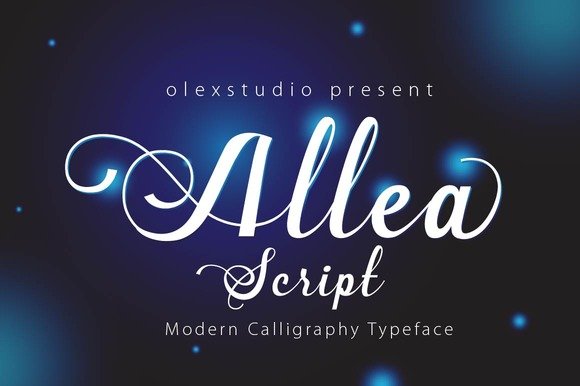
Adding a Touch of Elegance to Your Designs
Have you ever been brainstorming a new project, and suddenly, you envision the perfect combination of words and typography that just screams ‘elegance’? That’s exactly what happened to me when I stumbled upon the Allea Script Font. Its beautiful, flowing lines instantly sparked a vision of a classic, timeless design.
As it turns out, the Allea Script Font is a modern calligraphy typeface that’s perfect for adding a touch of sophistication to your designs. From headings and logos to invitations and posters, this versatile font is sure to elevate your creative projects and leave a lasting impression.
As a designer, you know how crucial it is to have the right tools at your disposal. The Allea Script Font is a valuable addition to any design arsenal, offering endless possibilities for creating stunning, elegant designs that will captivate your audience.
Allea Script Font Key Features
- Unique Characteristics: Allea Script Font features a beautiful, elegant, and cursive script design with subtle flourishes and connections between letters, making it perfect for creative and artistic projects.
Allea Script Font Review
I recently had the chance to work with Allea Script Font, and I must say it’s a beautiful addition to any design project. ✨ The elegant curves and swashes make it perfect for creating a luxurious and sophisticated look. The font’s high x-height and well-spaced letterforms ensure that it’s highly legible, even at smaller sizes.
- ✨ Beautiful, elegant curves and swashes
- ✨ Highly legible, even at smaller sizes
- ✨ Suitable for a wide range of design projects, from invitations to branding
However, I do have a few reservations about Allea Script Font. ⚠️ One of the main limitations is that it’s a single-weight font, which can make it difficult to use in situations where multiple weights are needed. Additionally, the font’s ornate nature can make it challenging to read in certain contexts, such as in body text.
- ⚠️ Single-weight font, may require additional fonts for multiple weights
- ⚠️ Ornate nature can make it challenging to read in body text
Overall, I’m impressed with Allea Script Font, but I do think it’s essential to consider its limitations when deciding whether to use it in a project. With careful selection and application, it can be a beautiful and effective addition to any design.
Allea Script font is ideal for creative projects, such as wedding invitations, birthday cards, and branding materials. To get the most out of it, use it in conjunction with bold and sans-serif fonts to create a visually appealing contrast.
For a more elegant look, use Allea Script font in a larger font size and pair it with a simple background. Experiment with different font sizes and styles to create a unique and eye-catching design.